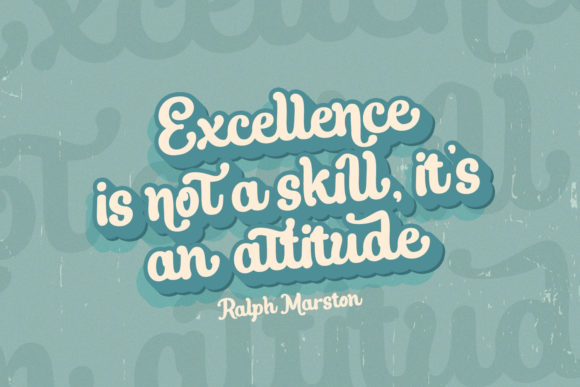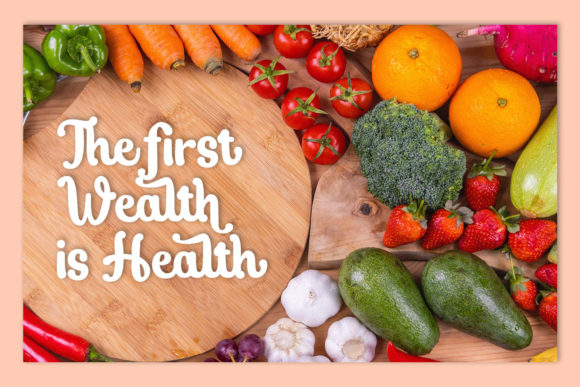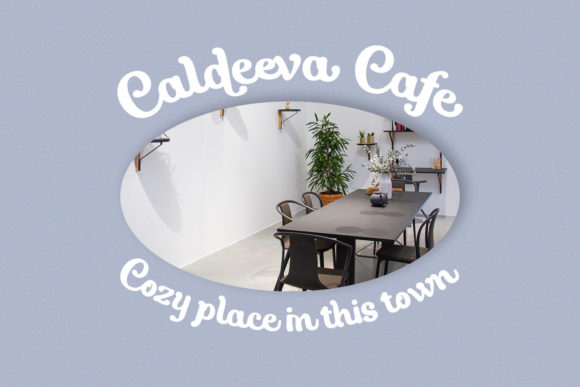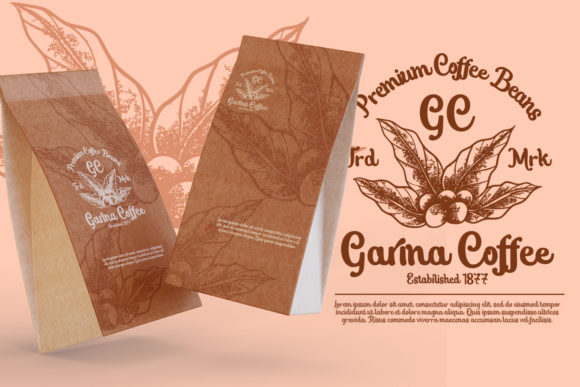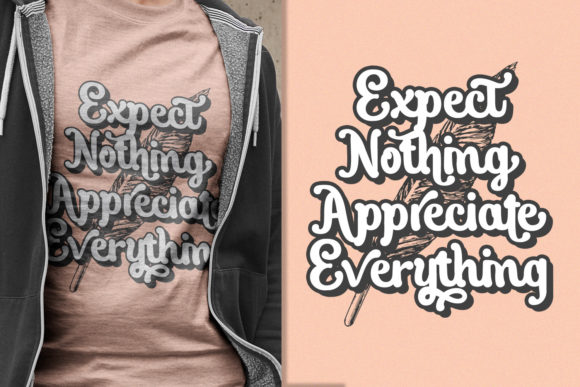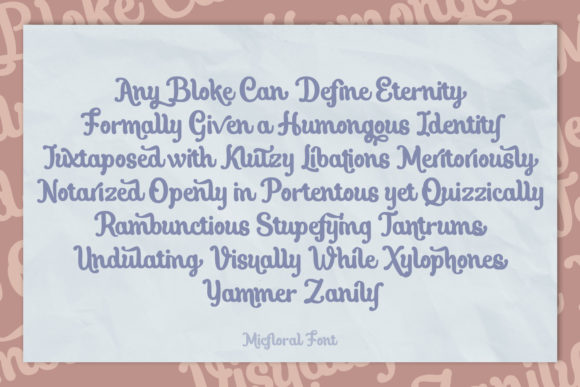
Introduction to Micfloral Font
There’s something magical about seeing a creative project come together. You’ve poured your heart and soul into the design, and it’s finally ready to be shared with the world. The perfect finishing touch? A beautiful handwritten font that adds a touch of personality to your work. That’s where the Micfloral Font comes in – a stunning design resource that’s sure to elevate any project to the next level.
With its perfect balance of playfulness and refinement, the Micfloral Font is the perfect choice for designers looking to add a touch of whimsy to their work. Whether you’re working on a high-quality design project or simply want to add some flair to your social media graphics, this font is sure to deliver. And with its transparent background and PUA encoded glyphs, you can access all of the swashes and flourishes with ease, making it a valuable addition to any designer’s toolkit.
Key Features of Micfloral Font
- Transparent background for seamless integration with various designs
- Includes 6 font styles with varying weights and styles for versatility
- Designed with high-resolution clarity for use in print and digital media
- Perfect for designers seeking a unique and elegant font for their designs
Honest Review: Micfloral Font
As a designer, I’m always on the lookout for high-quality design resources to elevate my creative projects. The Micfloral Font is a free download that caught my attention, and I’m excited to share my honest review.
- Feminine and elegant design aesthetic
- Large character set with a variety of styles and weights
- Transparent background option for seamless integration
- Not suitable for bold or sans-serif designs
- May not be the best choice for small text sizes due to its ornate details
Overall, I’m impressed with the Micfloral Font’s high-quality design and versatility. While it may not be the perfect fit for every project, it’s a great addition to any designer’s toolkit. Its feminine and elegant aesthetic makes it perfect for creative projects that require a touch of sophistication.
Tips for Getting the Most Out of Micfloral Font
Use Micfloral Font in conjunction with other design elements to create a visually appealing and cohesive design. Experiment with different font sizes and styles to add depth and interest to your project.
Common Use Cases for Micfloral Font
Micfloral Font is ideal for use in creative projects such as wedding invitations, branding materials, and social media graphics. Its high-quality design and transparent background make it a versatile and convenient choice for designers.
Alternatives to Micfloral Font
Pacifico Font is a beautiful, elegant script font ideal for creative projects that require a touch of sophistication. It features a transparent background and is available for free download. When to use: wedding invitations, greeting cards, or any design that requires a classic, luxurious feel.
Comparison to Micfloral Font: Pacifico Font has a more refined and formal look compared to Micfloral Font’s playful, whimsical feel. While Micfloral Font is perfect for children’s book illustrations or nursery decor, Pacifico Font is better suited for high-end design projects that require a sense of sophistication.
Great Vibes Font is a high-quality, cursive script font that’s perfect for creative projects that need a fun, energetic feel. It features a transparent background and is available for free download. When to use: social media graphics, advertisements, or any design that requires a lively, approachable tone.
Comparison to Micfloral Font: Great Vibes Font has a more casual and relaxed feel compared to Micfloral Font’s playful yet delicate look. While Micfloral Font is ideal for children’s design resources, Great Vibes Font is better suited for creative projects that require a fun, carefree vibe.
Does the Micfloral Font have a transparent background?
Yes, the Micfloral Font has a transparent background, making it ideal for use on images with a background. This feature allows for a high-quality design that blends seamlessly with your creative project. To use the transparent background, ensure your design software supports this feature.